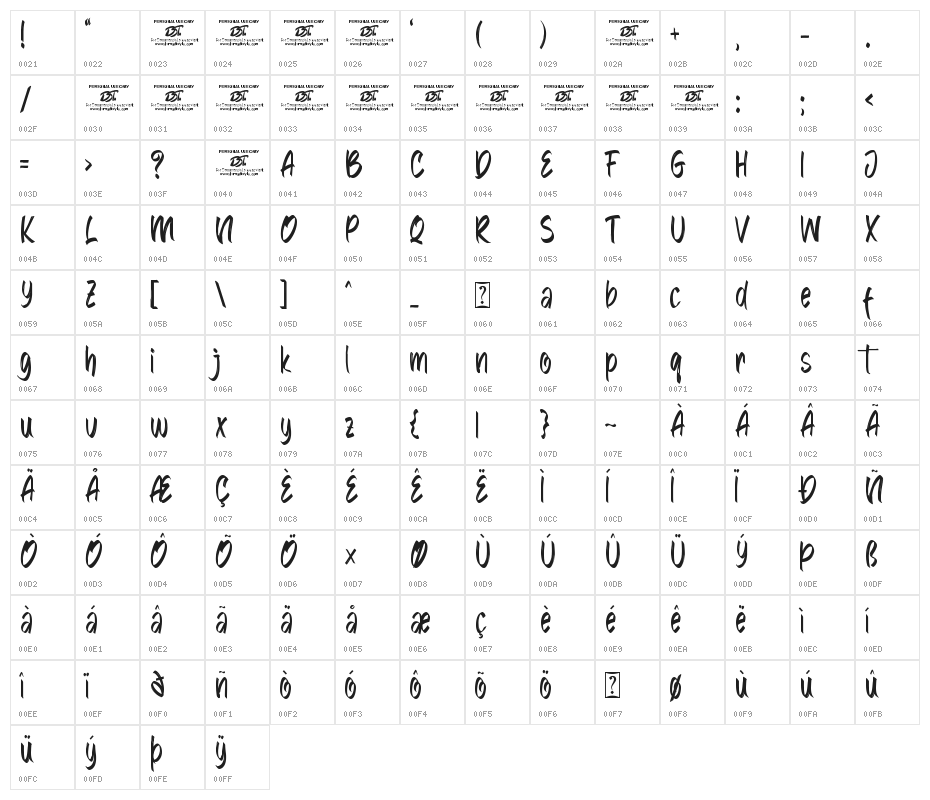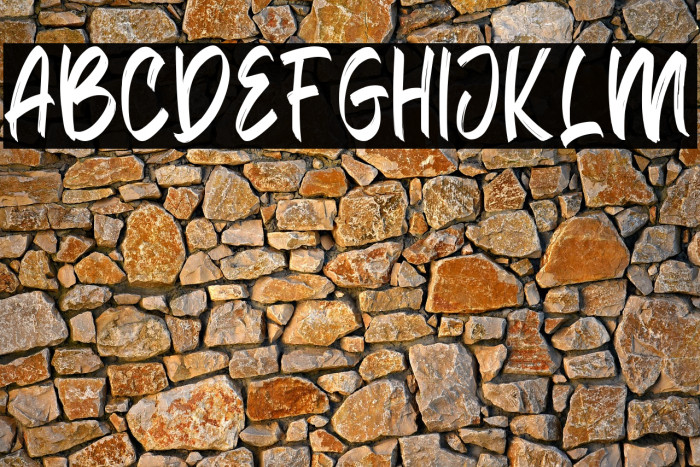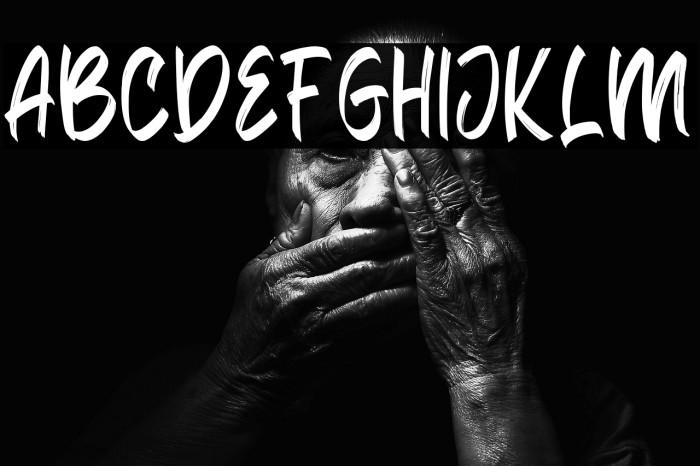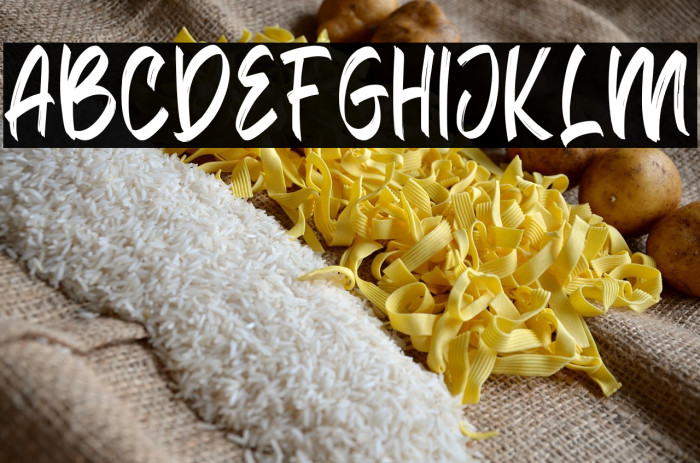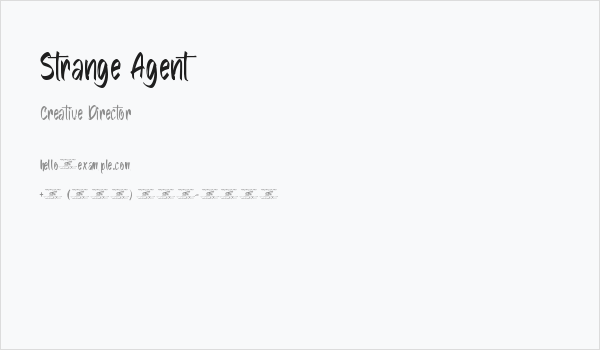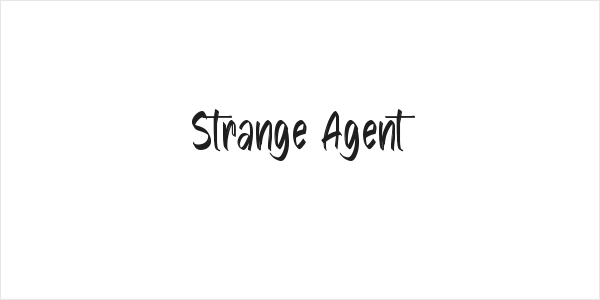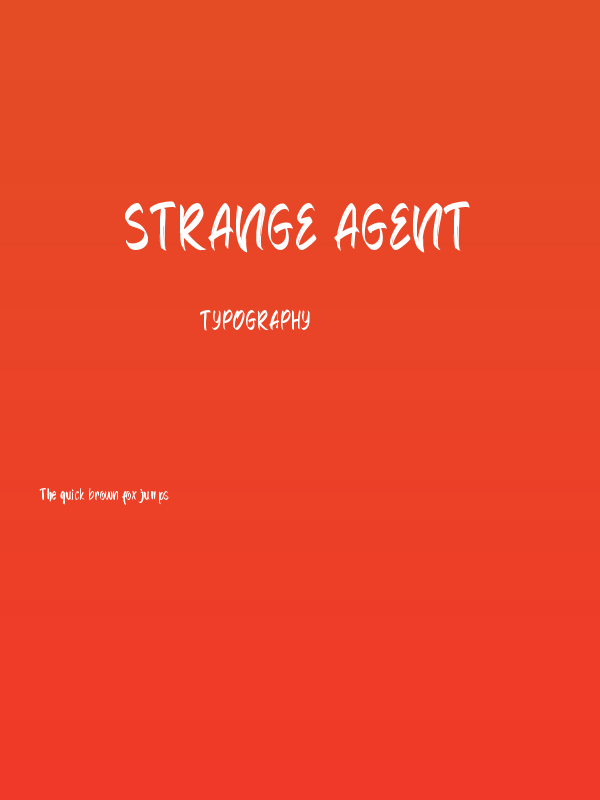
Strange Agent Font
Strange Agent Description
This font features a bold, brush-like style with a dynamic and energetic appearance. The strokes are thick and expressive, giving it a hand-painted feel. The characters have a slightly irregular baseline, adding to its casual and artistic vibe. The uppercase letters are tall and commanding, while the lowercase letters maintain a consistent flow with a touch of whimsy. The font includes a full set of uppercase and lowercase letters, numbers, and a selection of special characters. Its unique style makes it suitable for projects that require a personal and creative touch.
| Proposed Projects | Ideal for posters, branding, social media graphics, and creative projects that require a bold and artistic touch. |